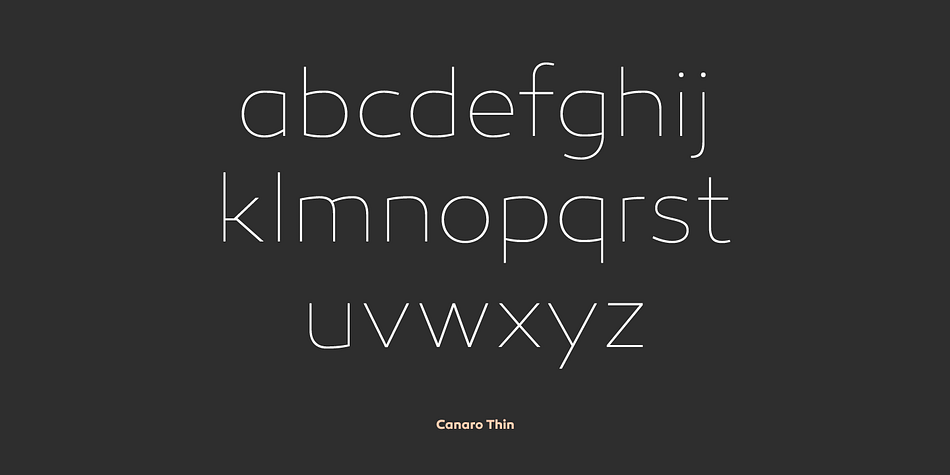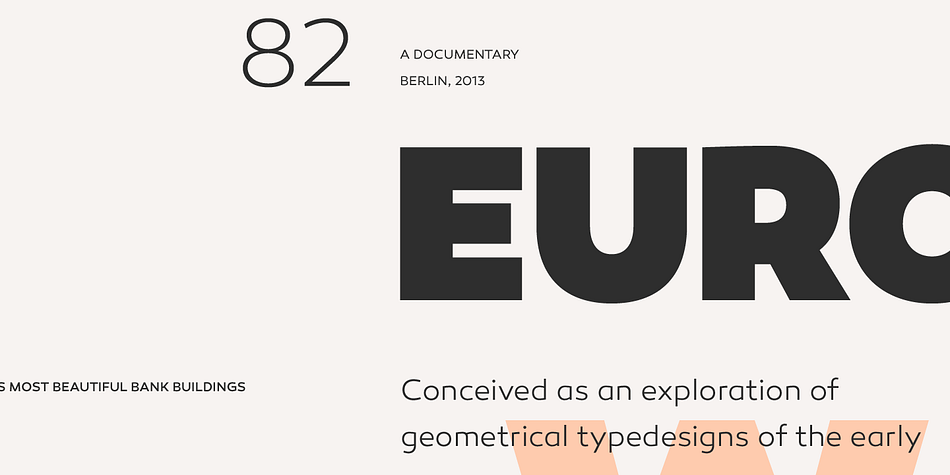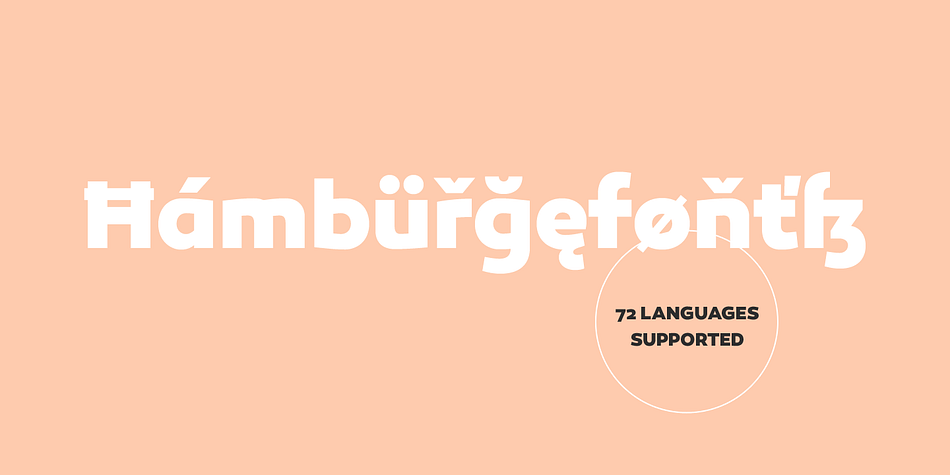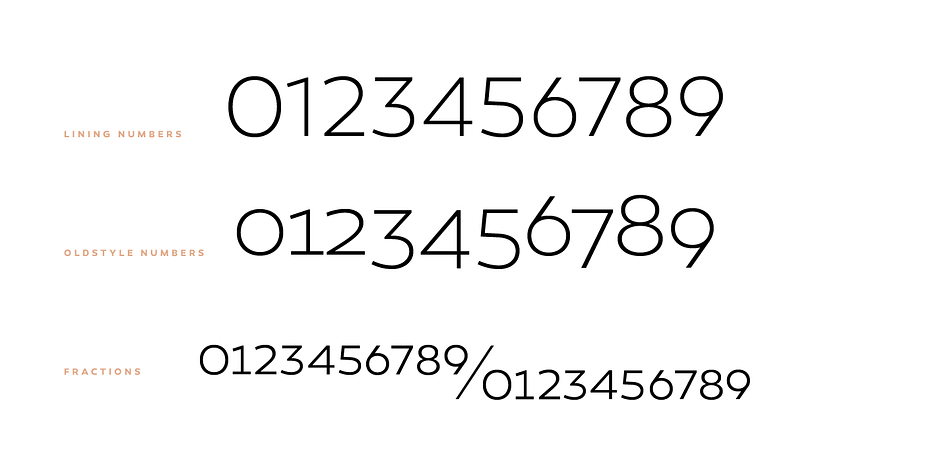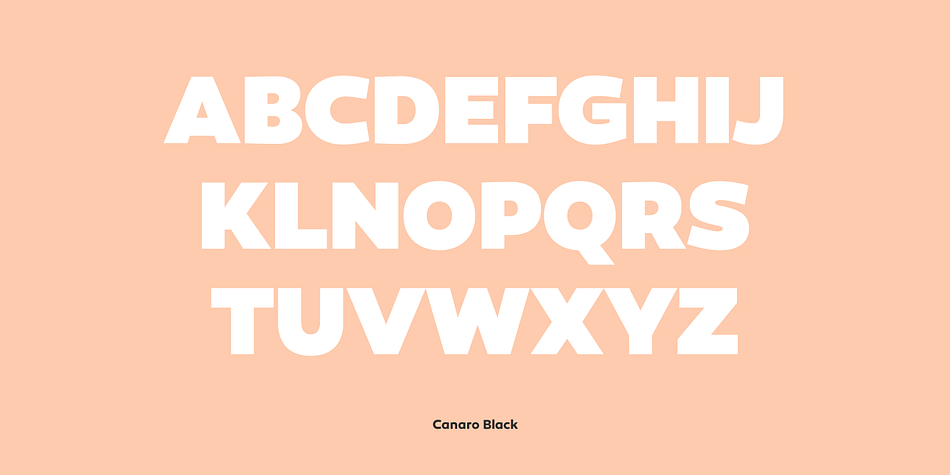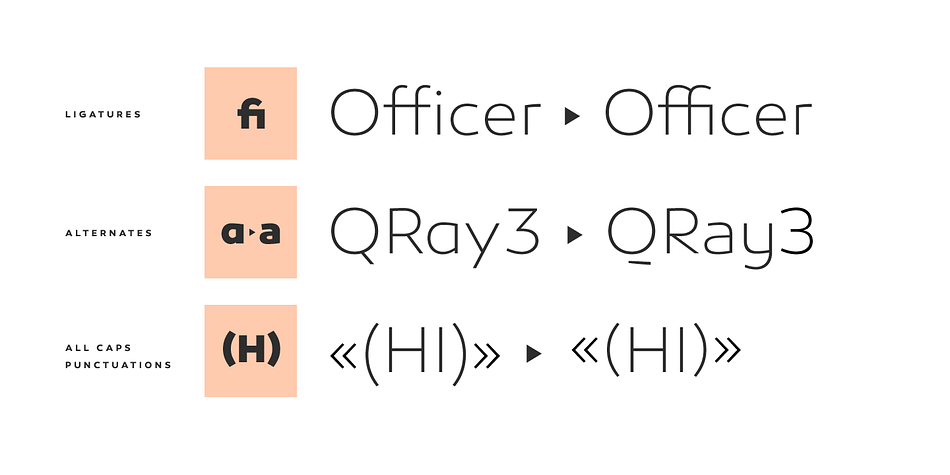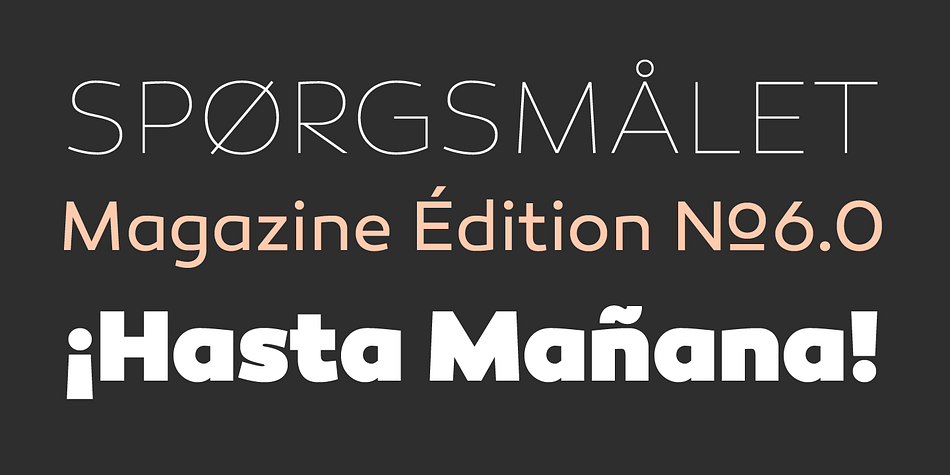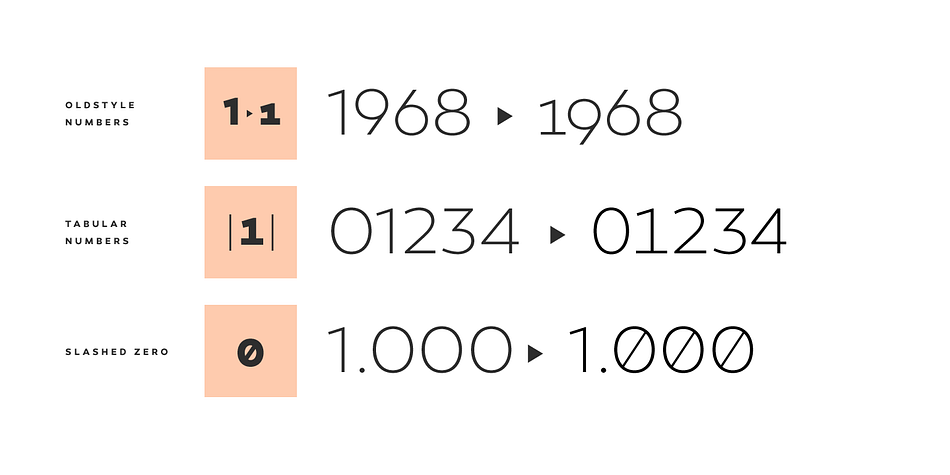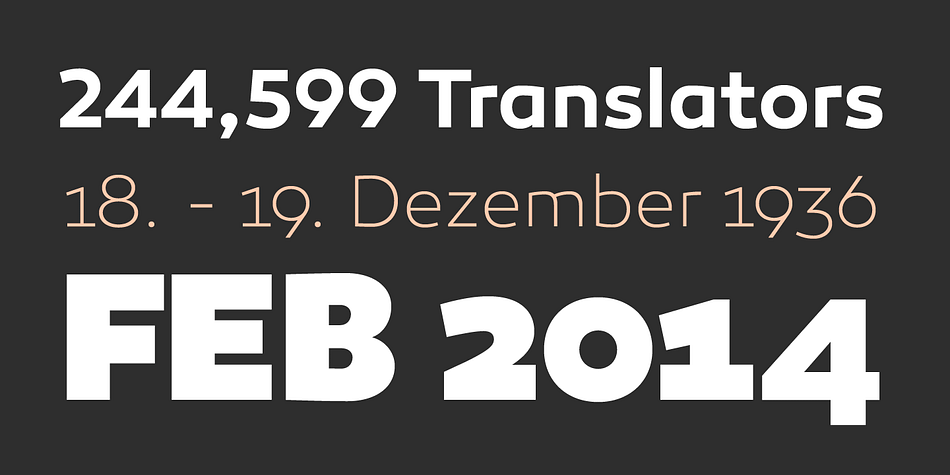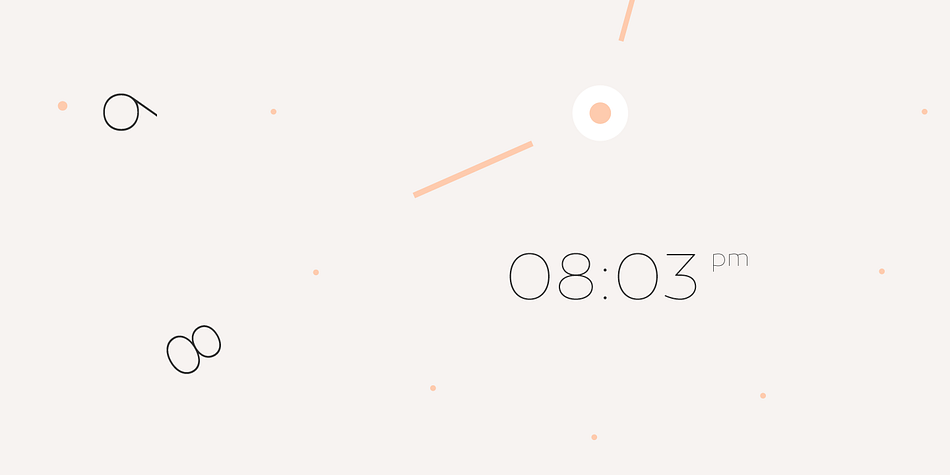
Canaro is a sans serif font family. This typeface has twenty styles and was published by Rene Bieder.
Conceived as an exploration of geometrical typedesigns of the early 20th century, Canaro developed into a font of that period with a modern streak. The lack of spurs provide a unique but unobtrusive appearance and support the contemporary character. In addition, the open shapes in combination with a tall x-height, create legibility in small text sizes. Typographic features like alternative lettershapes, ligatures, oldstyle numbers, arrows, fractions, special characters and many more, round up the whole family. Canaro is available in nine weights plus matching italics. Ranging from sharp and elegant thinner cuts to sporty and athletic heavy weights.